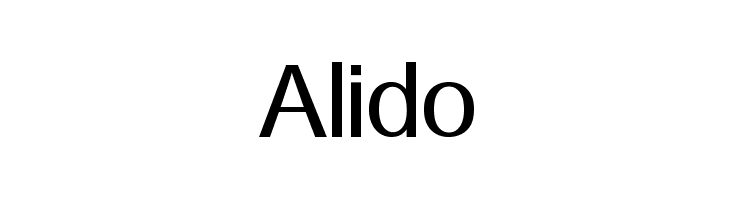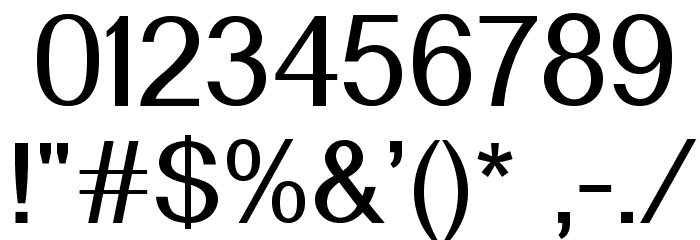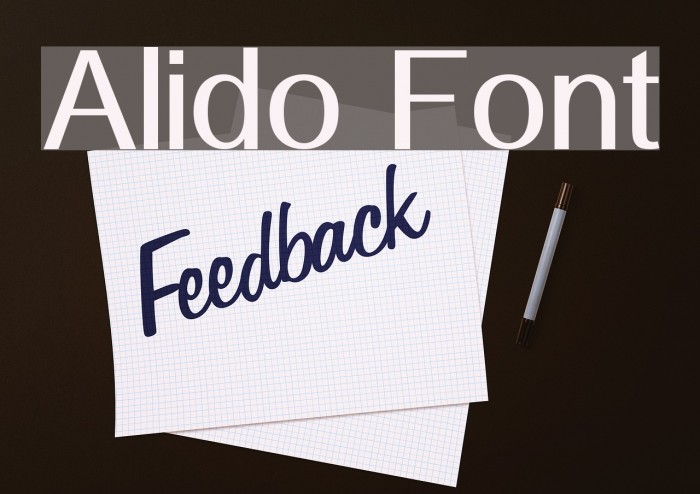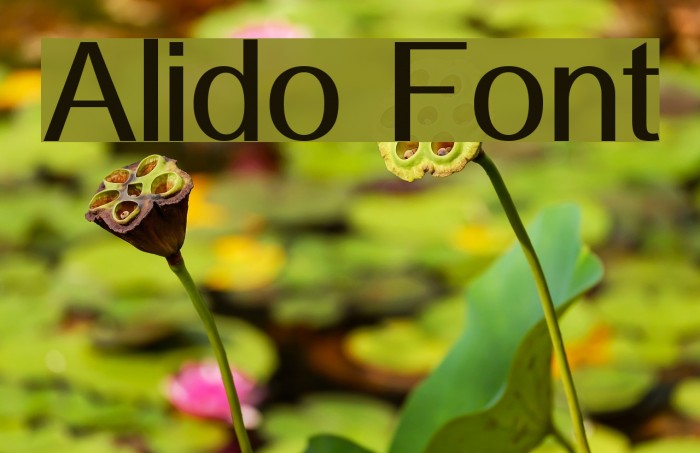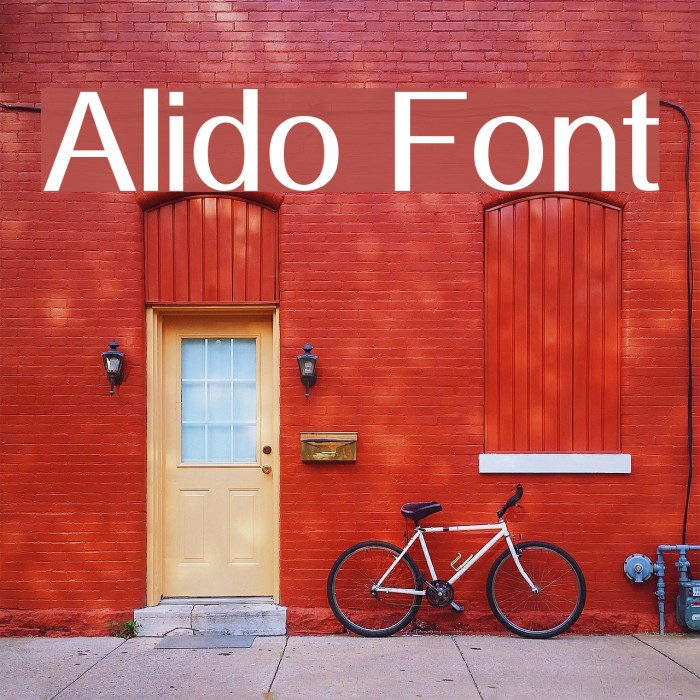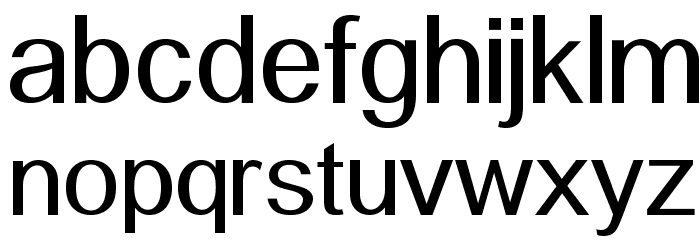
Alido Font
Alido Description
This font features a clean and modern sans-serif design, characterized by its simplicity and clarity. The letterforms are uniform with consistent stroke widths, providing a balanced and harmonious appearance. The uppercase letters are bold and assertive, while the lowercase letters maintain a friendly and approachable feel. Numbers are clear and legible, making them suitable for various applications. The special characters are well-integrated, ensuring versatility in usage. Overall, this font exudes a professional and contemporary vibe, making it ideal for digital and print media.
A modern, clean sans-serif font with uniform stroke widths and a professional appearance from Uncategorized fonts.
- Proposed Projects: Ideal for corporate branding, website headers, digital media, and print publications.